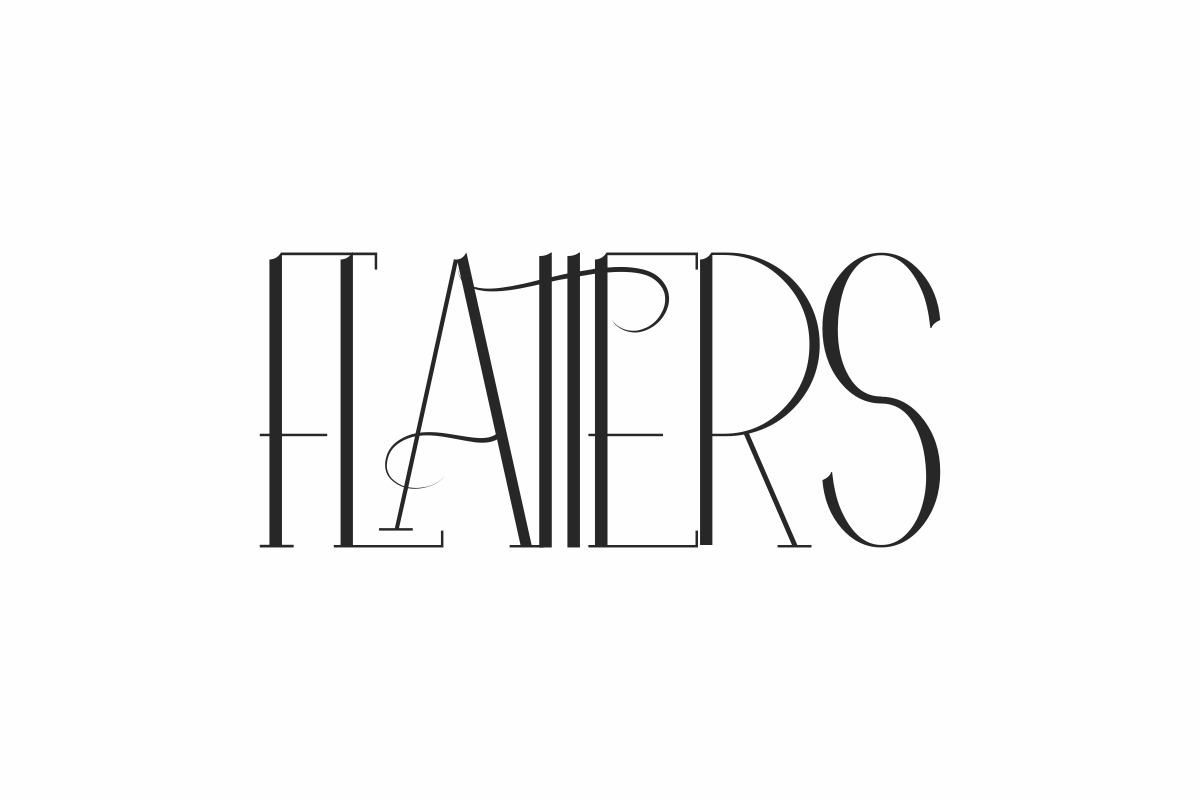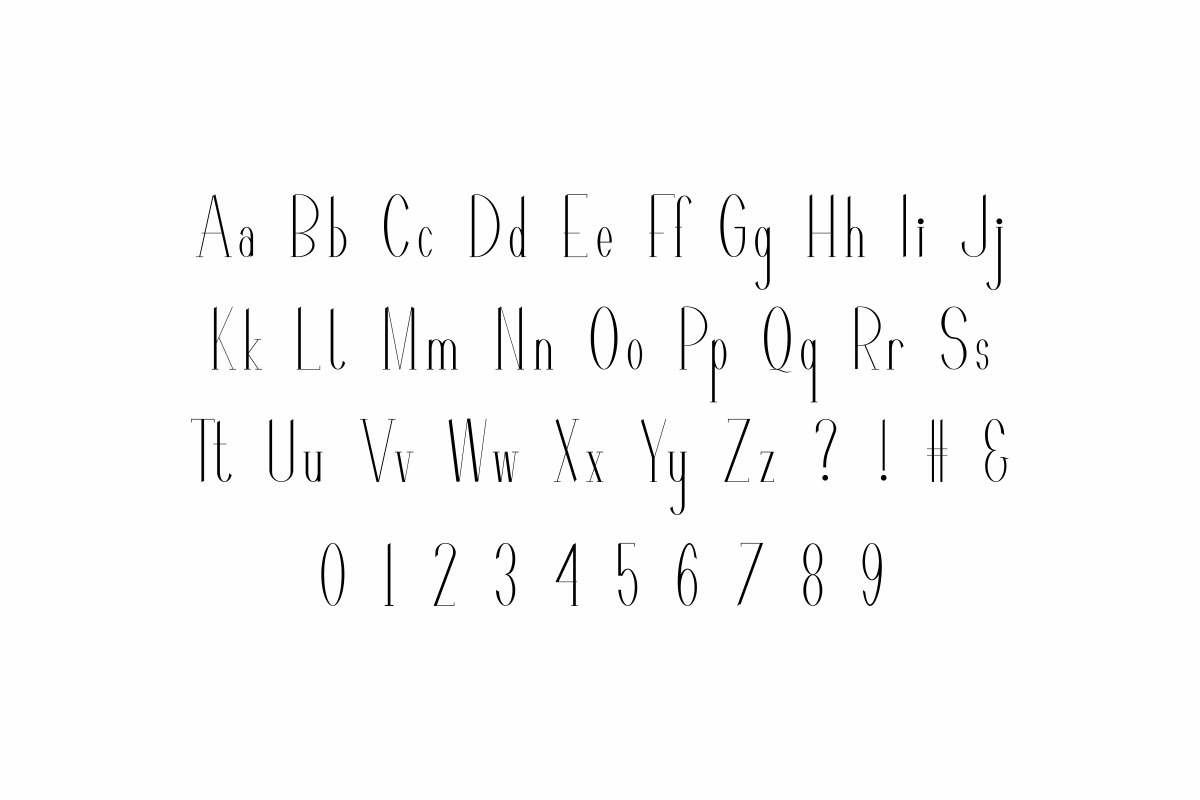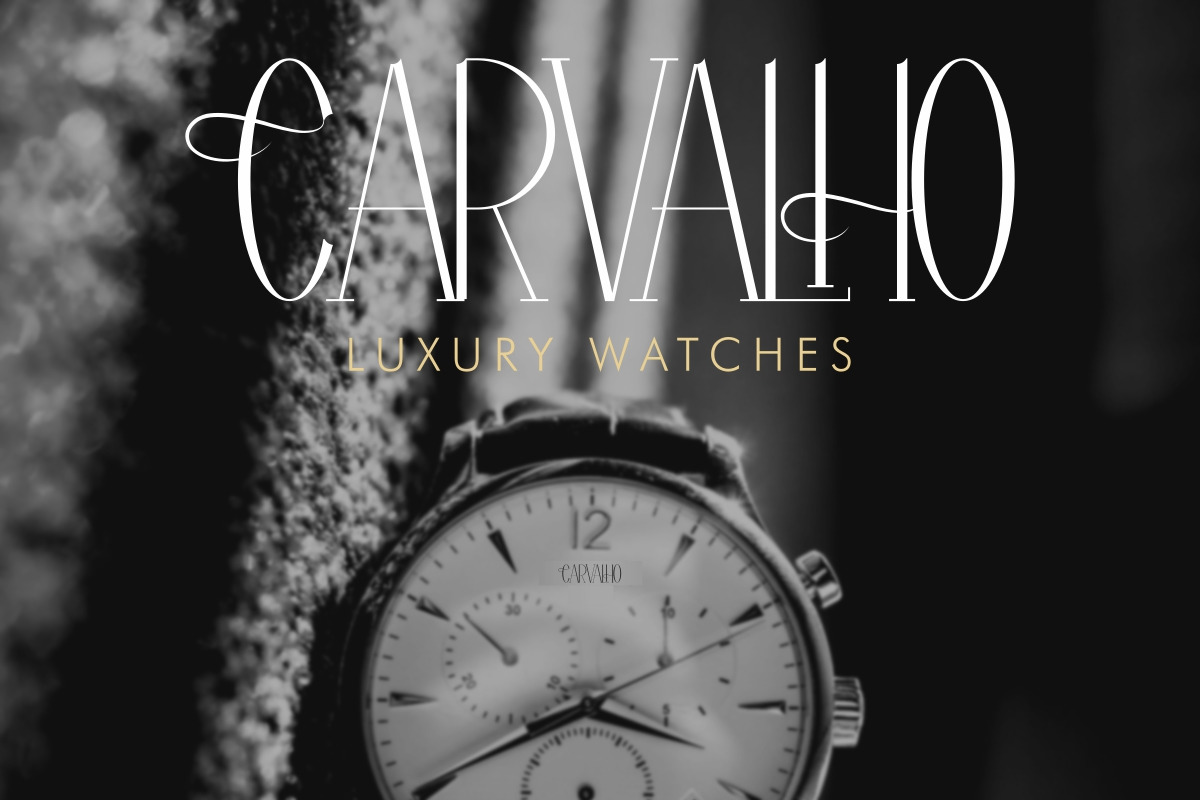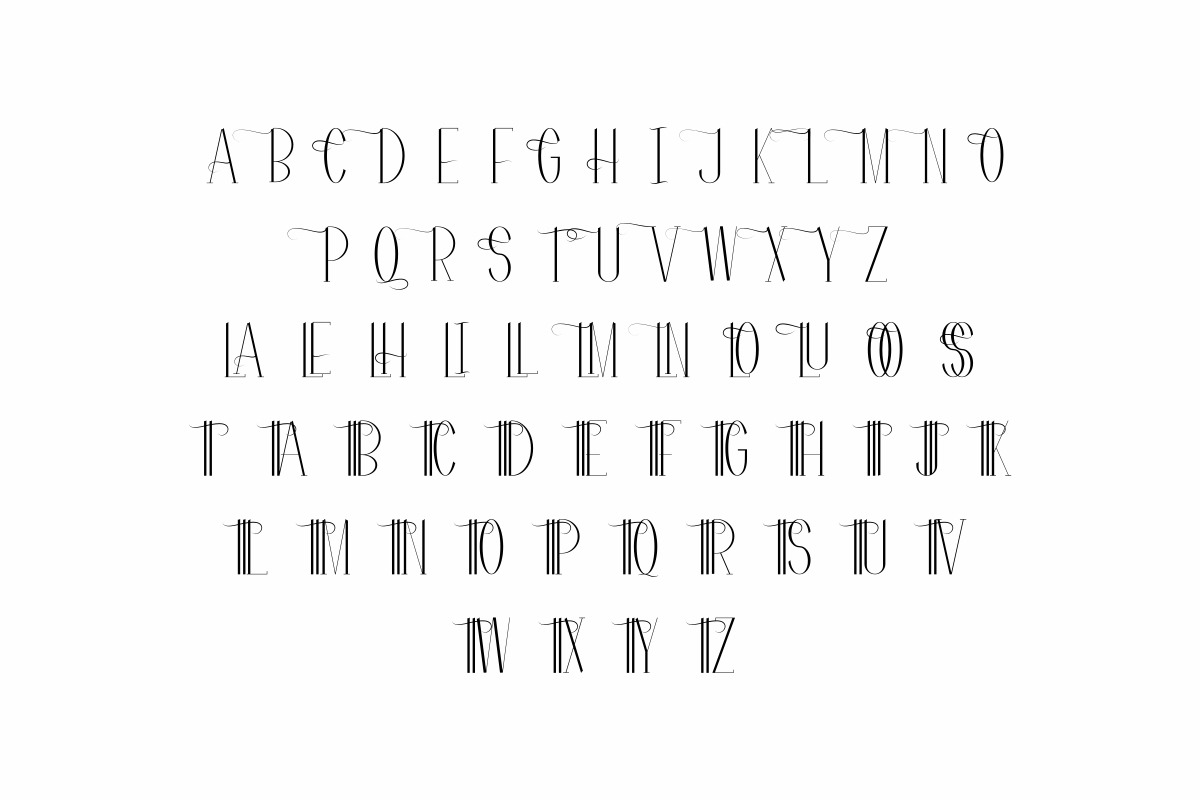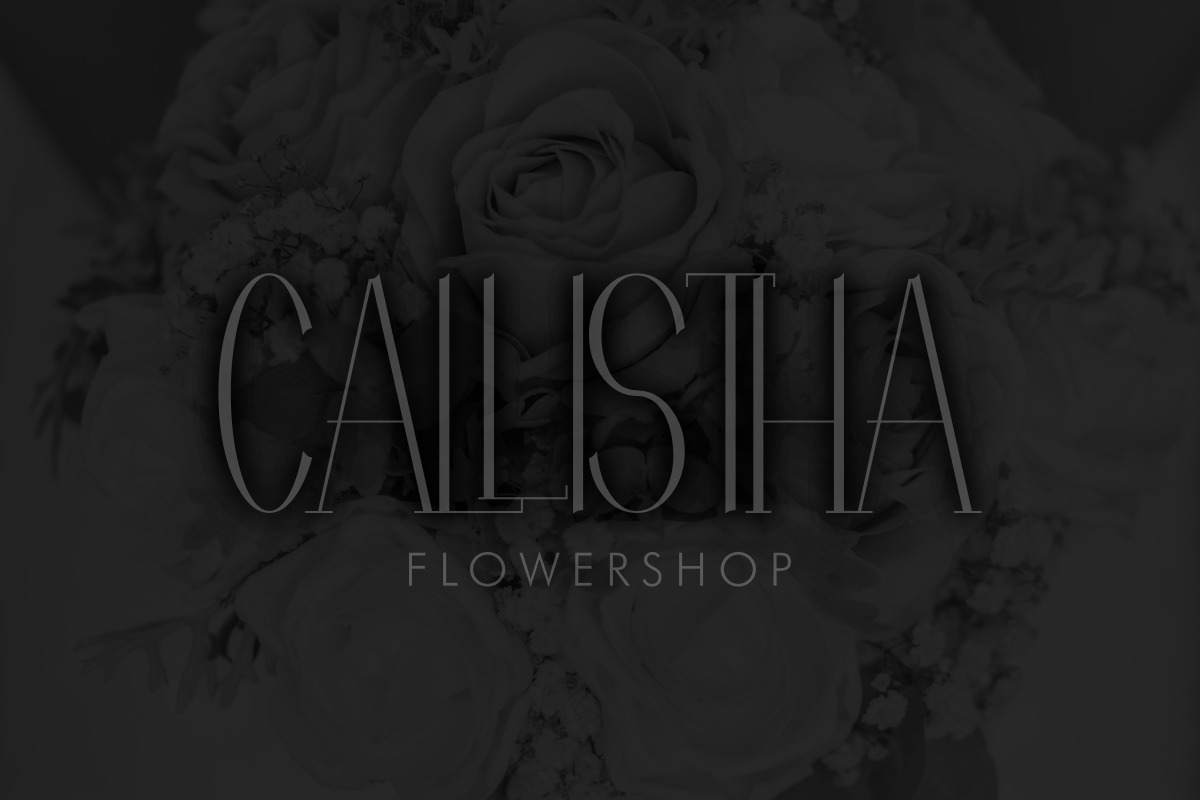
Flatters Serif Font
Flatters is a font duo font famliy with four different styles. Originally made by NihStudio Font Designers : Nouval, Widi and Sarah. On the package you will get :
The Flatters has 4 styles : Regular, Bold, Outline and Script (signature)